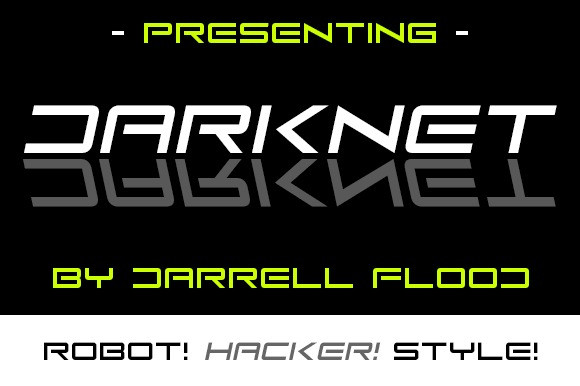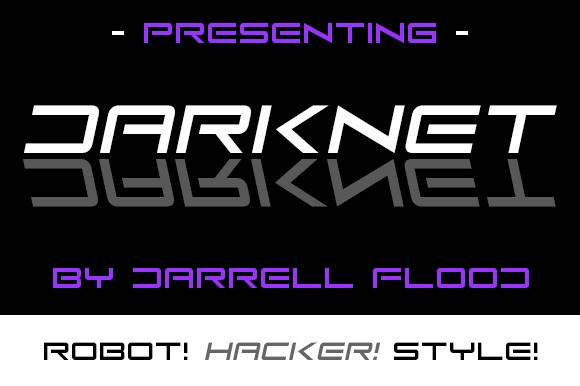
Darknet Font
Darknet Font is a futuristic, streamlined display font in a slick, modern sci-fi style. Perfect for alien-type projects, high-tech presentations, and general sci-fi use!